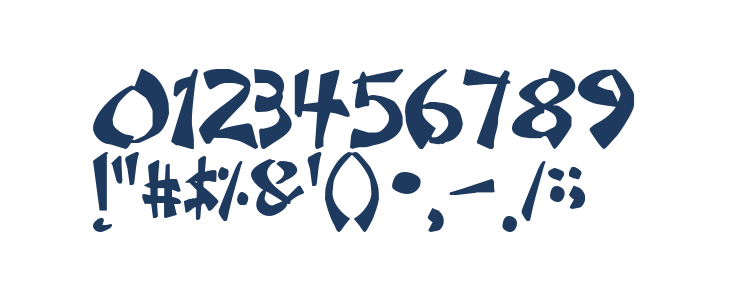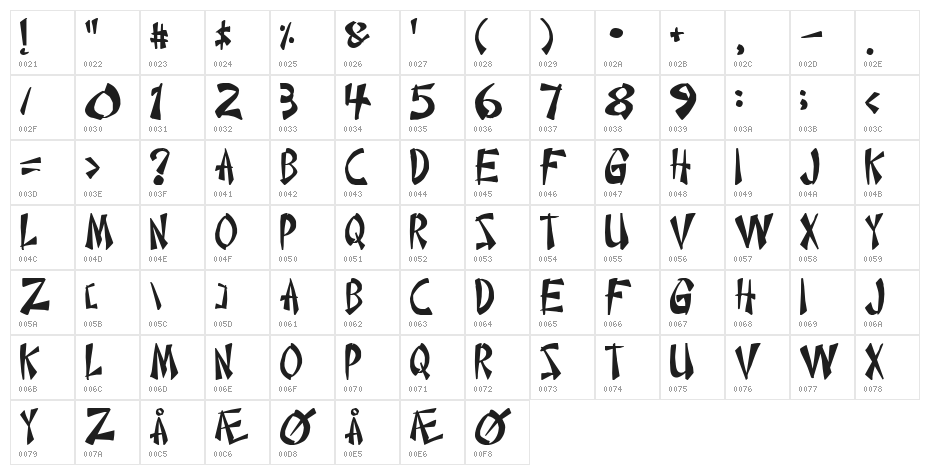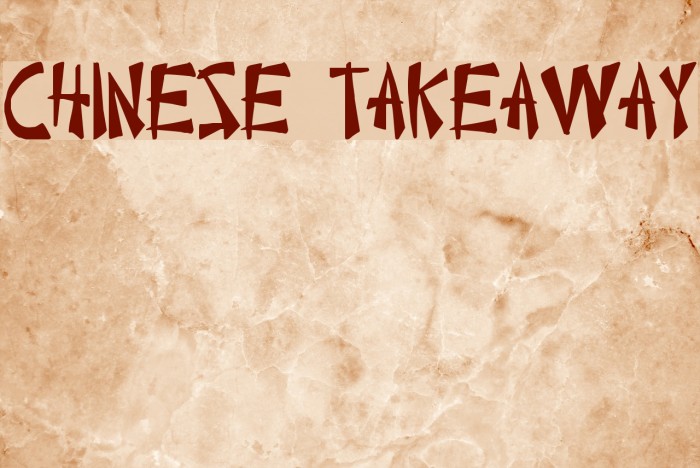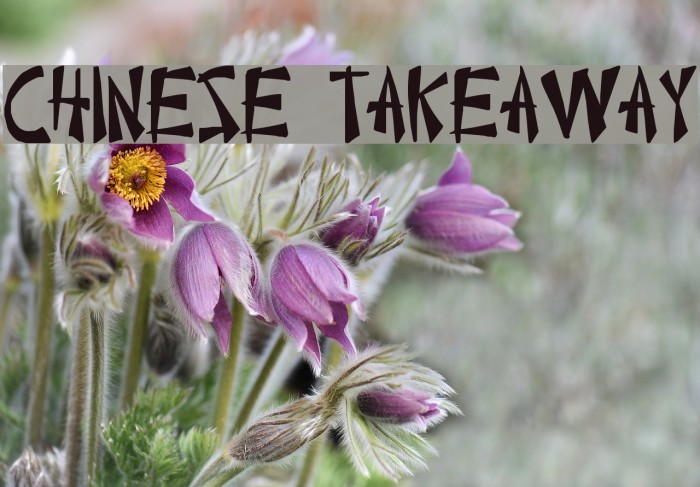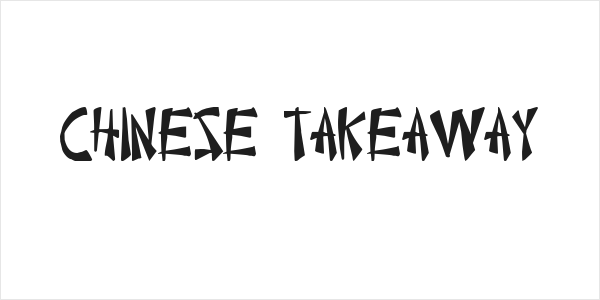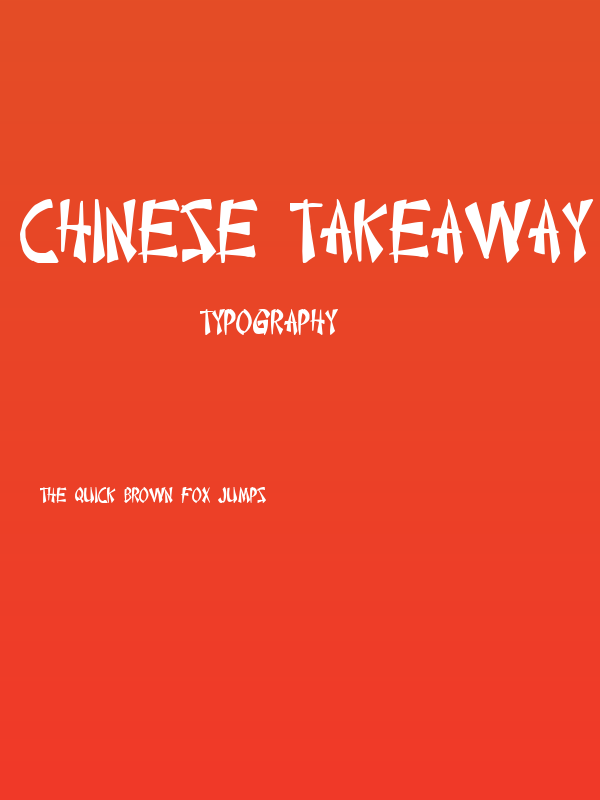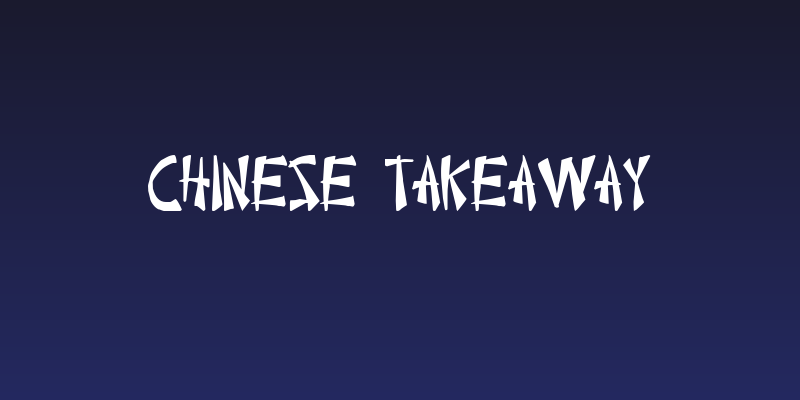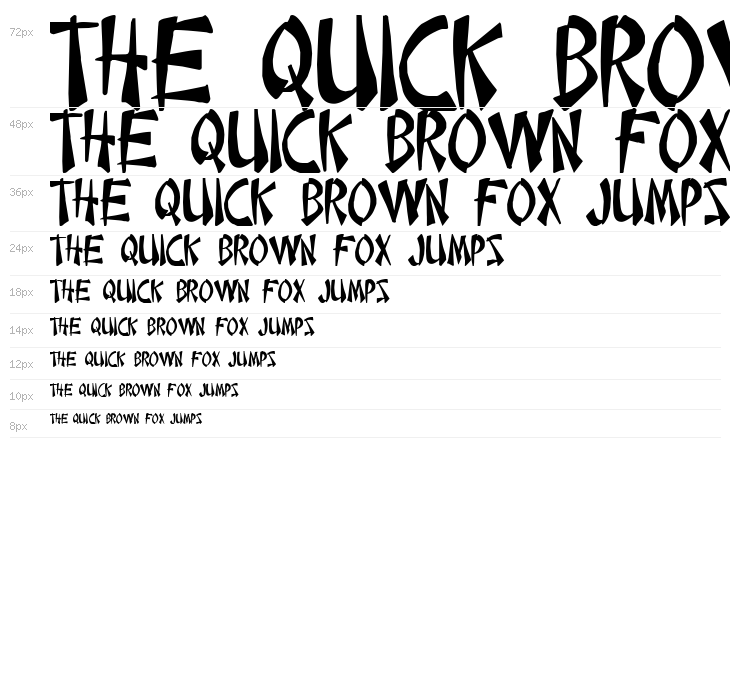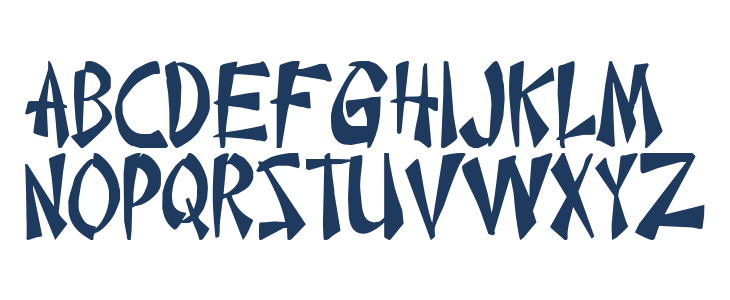
Chinese Takeaway Font
Chinese Takeaway Description
This font features a bold and dynamic style with an energetic flair, characterized by sharp angles and irregular strokes that give it a hand-drawn appearance. The uppercase letters are particularly striking, with a sense of movement and spontaneity. The numbers and special characters maintain this lively aesthetic, making the font suitable for eye-catching designs. Its unique style is reminiscent of brush strokes, adding a touch of artistic expression. The overall look is both playful and assertive, making it ideal for projects that require a strong visual impact.